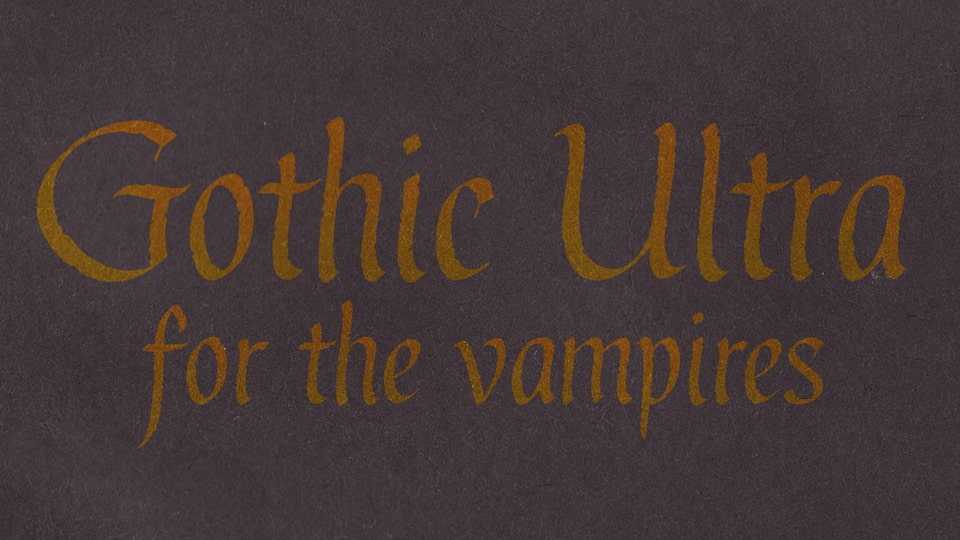
Download Gothic Ultra font, a timeless blackletter calligraphy typeface inspired by the intricate penmanship of medieval manuscripts.
Designer: Jess Latham